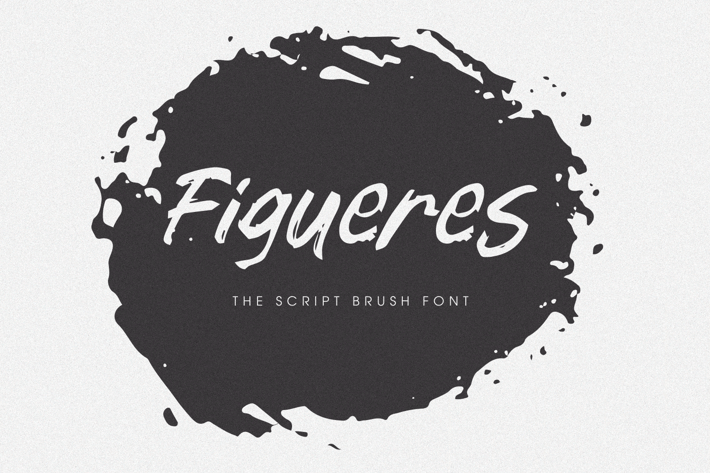
Figueres - A Script Brush Font
Introducing Figueres - A Script Brush Font. It comes with brush texture style which is perfect to make any design stand out! This font is perfect for branding, wedding invites, magazines, mugs, business cards, quotes, posters, and more.